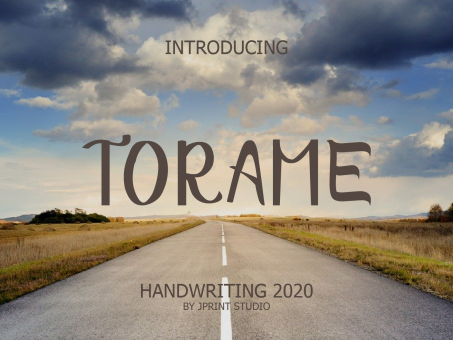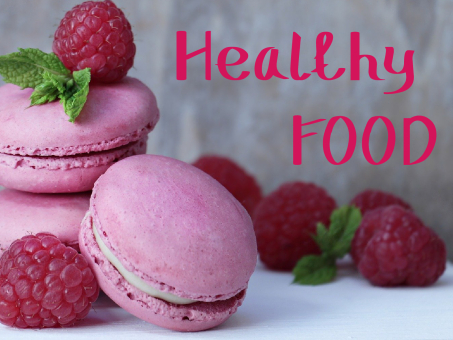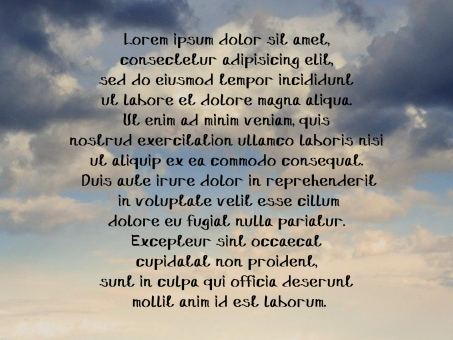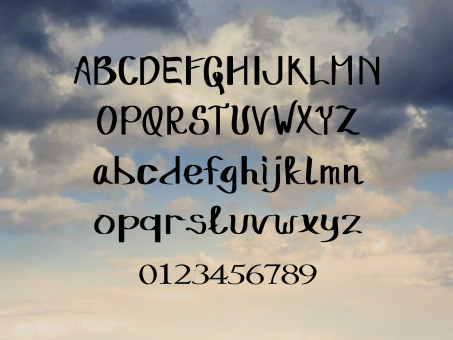
Torame Handwriting
Torame is a friendly and fun display font. Torame is best suited for headlines of all sizes, as well as for blocks of text that have both maximum and minimum variations.
Designer: Jprint Studio
Publisher: Jprint Design and Printing